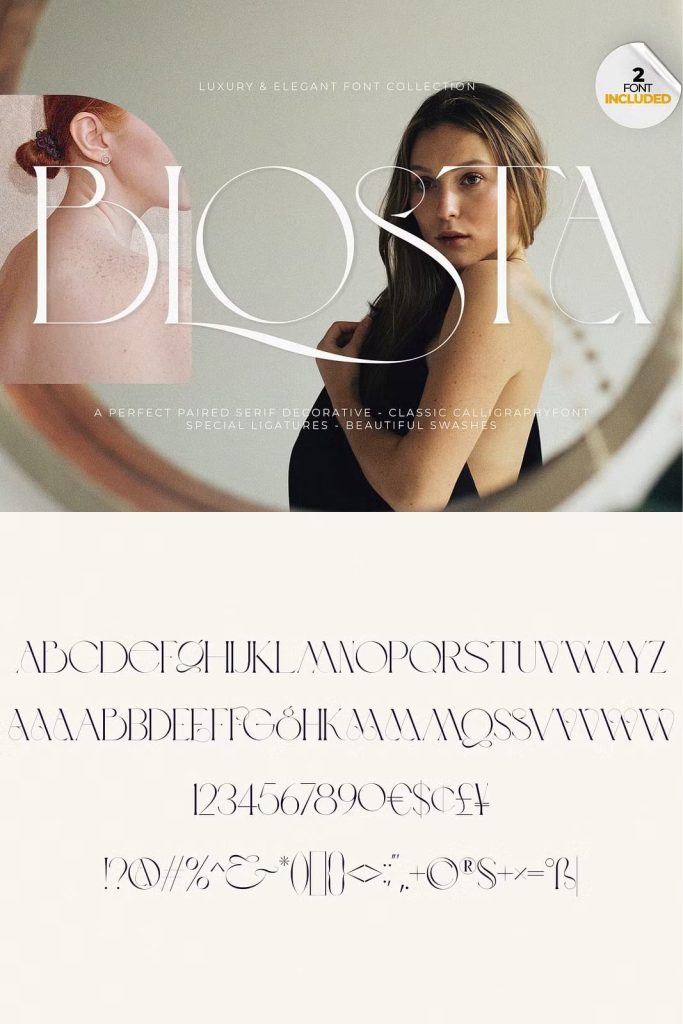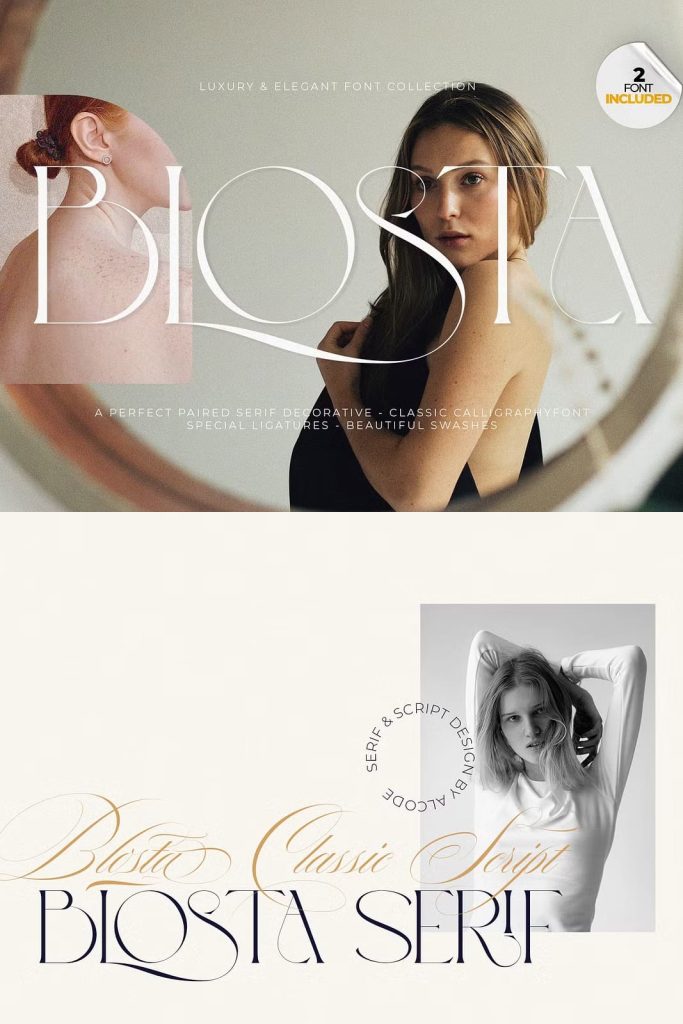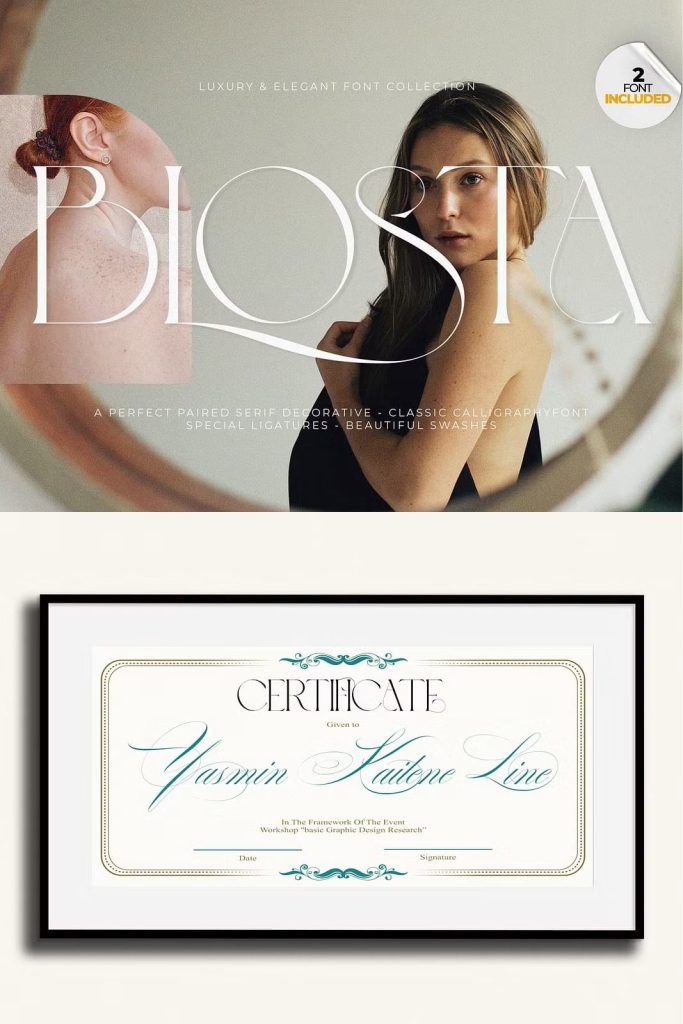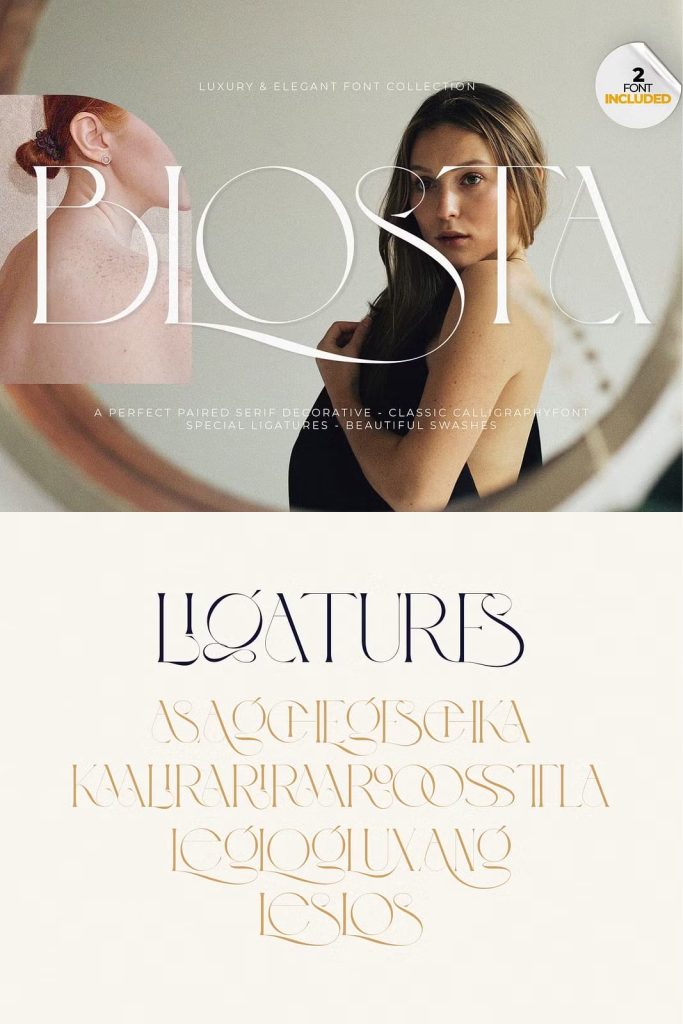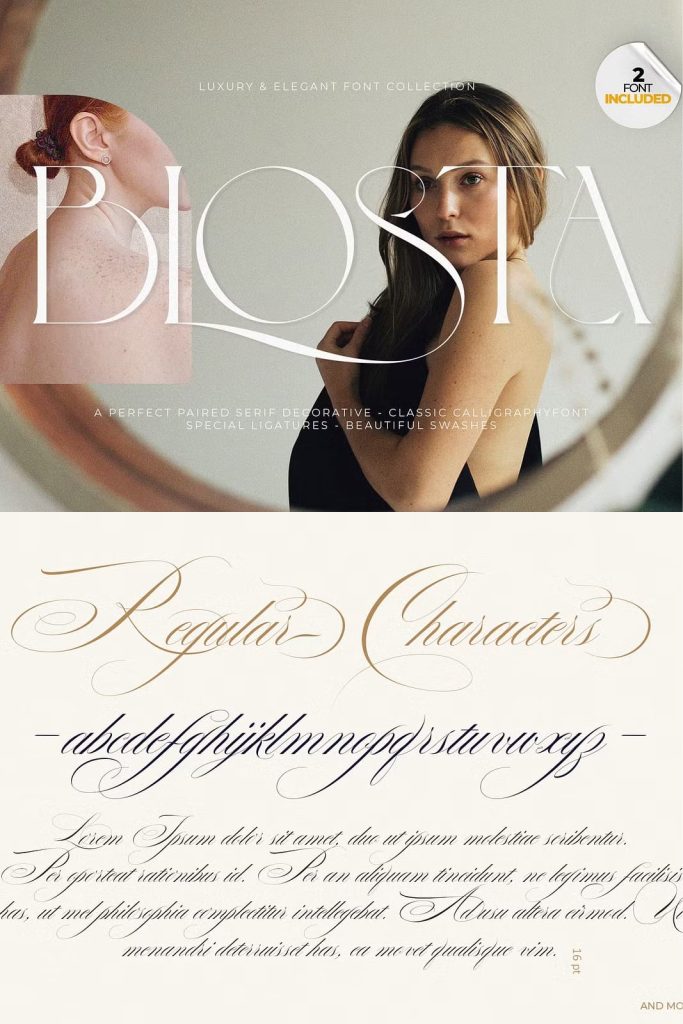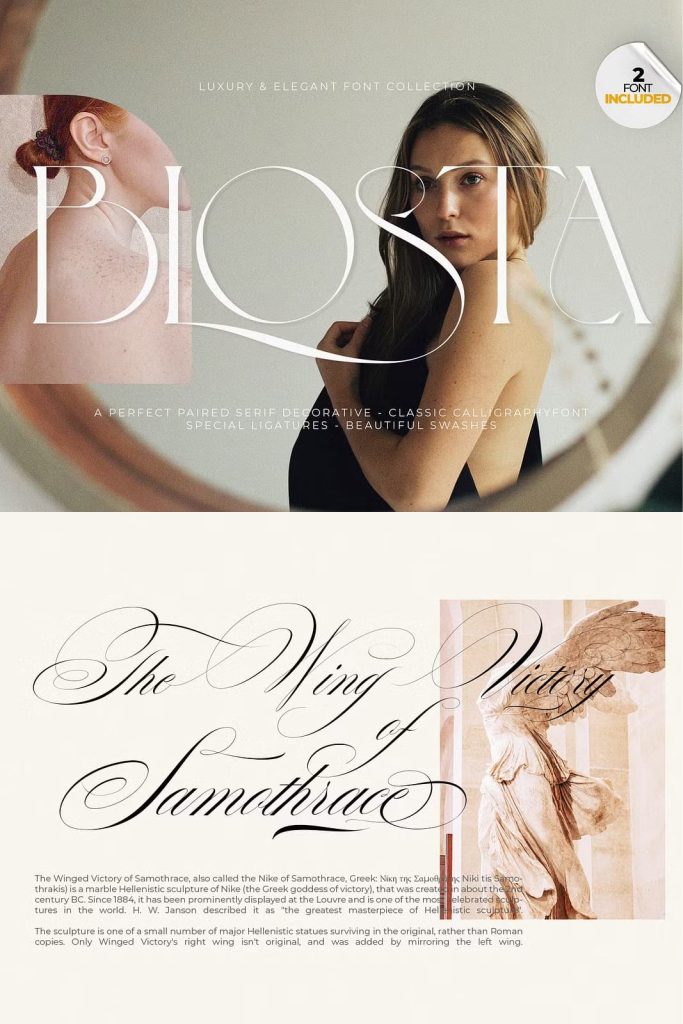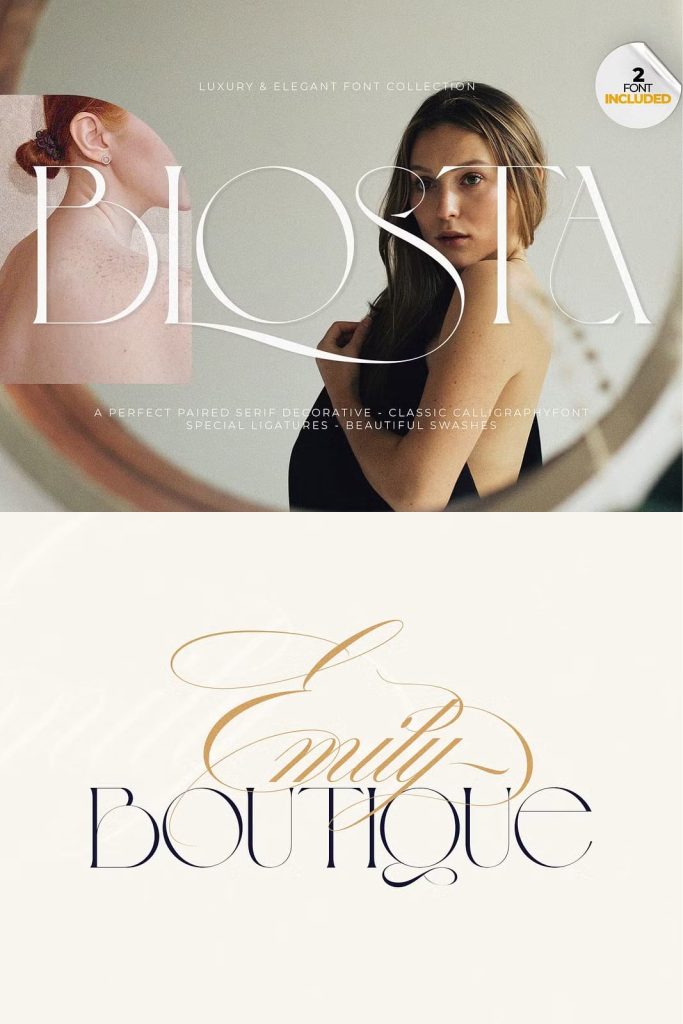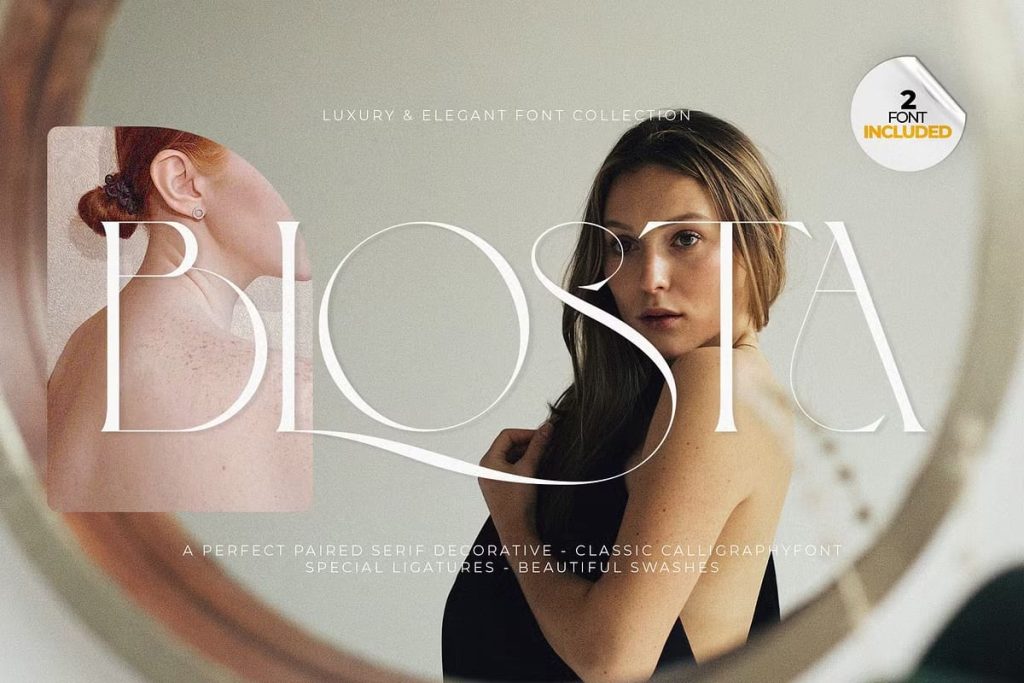
BLOSTA Font Duo//Serif & Script
Blosta Font Duo is a luxurious and elegant font pair that seamlessly combines sophistication with modern design trends. Featuring both a Serif Decorative and a Calligraphy Typeface, Blosta brings a refined touch to any creative project. Designed with trending ligatures and unique special characters, this font duo enhances your typography with richness, beauty, and flexibility. Whether used for branding, packaging, or editorial design, Blosta delivers an unforgettable visual impression.
Experience the Beauty of Luxury Typography
Blosta Font Duo embodies the perfect balance between classical elegance and modern creativity. The serif decorative font adds structure, confidence, and timeless appeal, while the calligraphy script introduces grace, flow, and emotion. Together, they form a sophisticated pairing that elevates every design with a luxurious and artistic feel.
The refined letterforms, delicate strokes, and carefully crafted ligatures give Blosta a distinctive look that stands out in any visual composition. Its harmonious combination of two complementary styles allows designers to create dynamic contrasts, making text both captivating and easy to read. With Blosta, your words gain personality, rhythm, and elegance—perfect for projects that demand style and substance.
Versatile and Designed for Creativity
Blosta Font Duo is built to be as functional as it is beautiful. The serif typeface provides structure and balance, making it ideal for headlines, editorial titles, and professional branding. In contrast, the flowing calligraphy font adds a personal, handcrafted charm that’s perfect for wedding invitations, packaging, logos, and promotional materials. Whether you want to create a timeless luxury brand or a modern lifestyle identity, Blosta adapts effortlessly to your design vision.
This typeface pair was designed to perform beautifully across both print and digital platforms. Its smooth curves and balanced spacing ensure flawless readability, while its high-contrast strokes bring visual depth and sophistication. Blosta maintains elegance in large displays yet remains perfectly legible in smaller text applications, offering unmatched versatility for creative professionals.
Exceptional Features and Elegant Details
One of Blosta’s standout qualities is its attention to typographic detail. Both fonts come with a variety of ligatures, alternates, and special characters, enabling endless creative combinations. These OpenType features allow you to personalize your text, crafting typography that feels custom-made and expressive.
The serif decorative font exudes a sense of refinement and tradition, making it perfect for brands that emphasize heritage, luxury, and professionalism. Meanwhile, the calligraphy script adds a sense of warmth and intimacy, ideal for personal projects and creative storytelling. When used together, the result is an elegant typographic pairing that communicates confidence and creativity in perfect harmony.
Perfect for Branding, Packaging, and Editorial Design
Blosta Font Duo is the ultimate tool for designers seeking sophistication and flexibility. It shines in branding and identity design, helping businesses convey a sense of exclusivity and trust. Use it to craft logos, magazine covers, luxury product packaging, invitations, or website headers—and instantly elevate your project’s aesthetic.
The duality of Blosta’s fonts makes it easy to create contrast while maintaining visual unity. The serif font anchors your layout with bold structure, while the calligraphy style brings movement and emotion. This balance of strength and softness makes Blosta ideal for high-end fashion, beauty, lifestyle, and boutique brands aiming to stand out in a crowded market.
Designed to Inspire Creativity
Blosta is more than a typeface—it’s an artistic statement. Its contemporary flair, combined with traditional craftsmanship, allows designers to experiment freely. The smooth letter connections, detailed ligatures, and balanced proportions create an effortless flow that adds rhythm and sophistication to every word. Each glyph is thoughtfully designed to ensure that your typography looks polished and harmonious from start to finish.
From minimalistic layouts to richly detailed designs, Blosta Font Duo enhances your visual storytelling. Its elegance makes it suitable for formal applications, while its modern twist ensures relevance across current design trends. This adaptability makes Blosta a valuable addition to any creative toolkit.
Bring Elegance and Personality to Your Designs
With Blosta Font Duo, your typography becomes more than just text—it becomes a statement of luxury and artistic intent. The combination of serif sophistication and calligraphic grace allows you to craft visuals that communicate elegance, trust, and creativity. Each letter feels intentional, giving your projects the depth and charm they deserve.